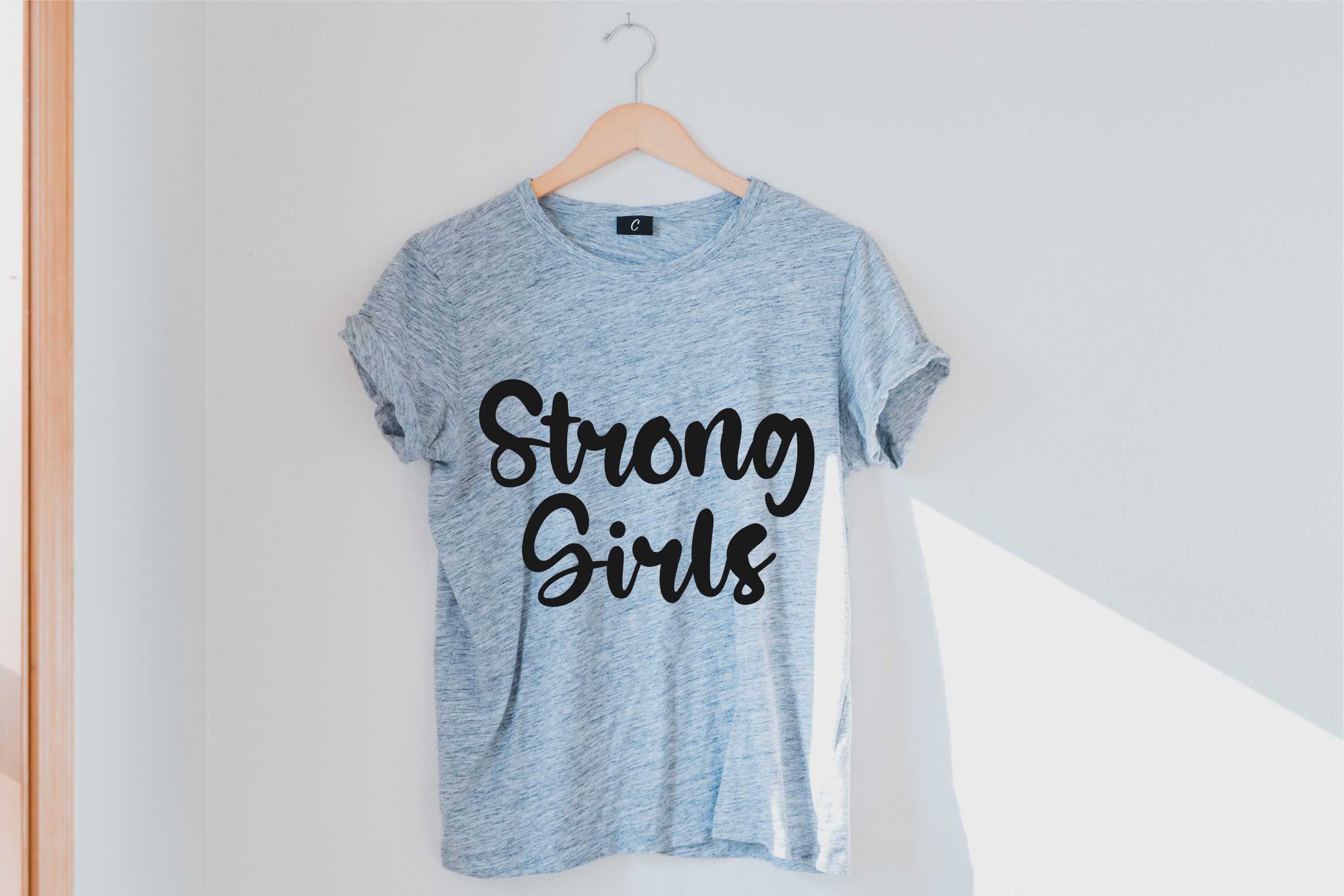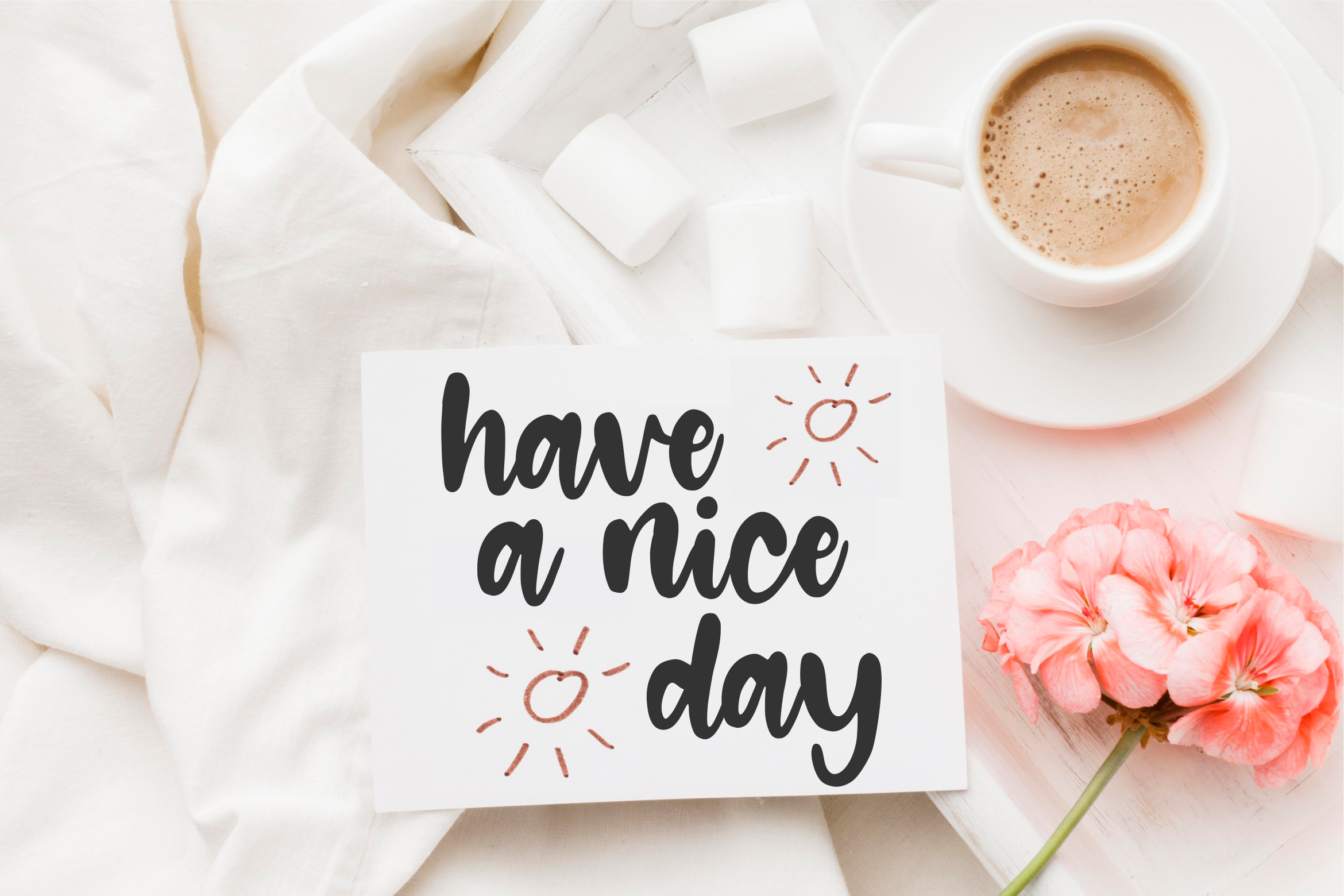
Enlightica Font
Enlightica Script Font
This is a Modern Handwritten Script Font. Enlightica is perfect for product packaging, branding project, magazines, social media, weddings, or just used to express words above the background.